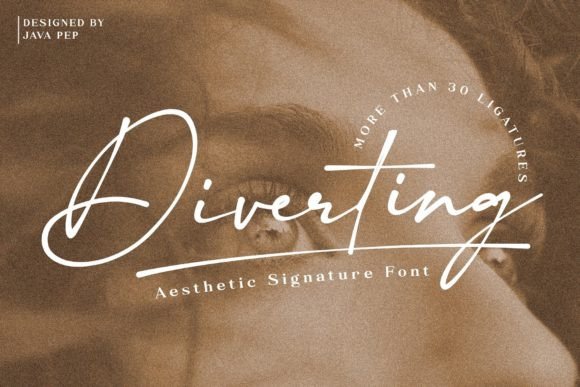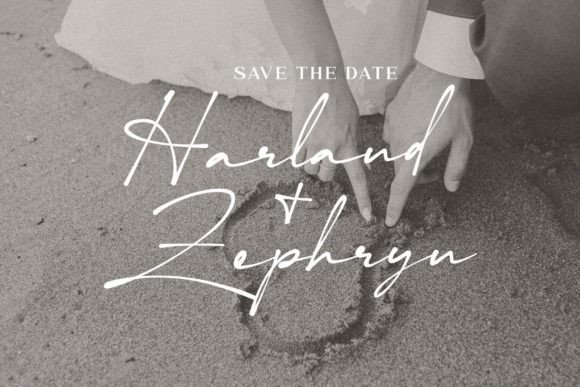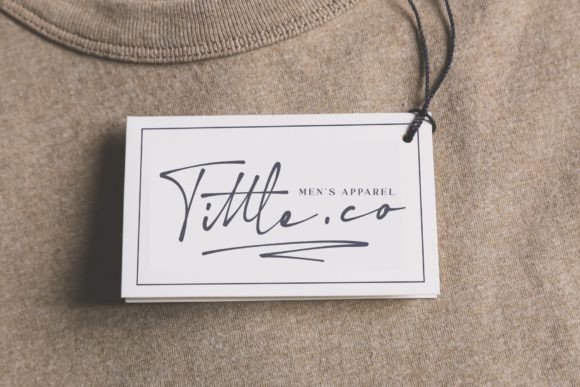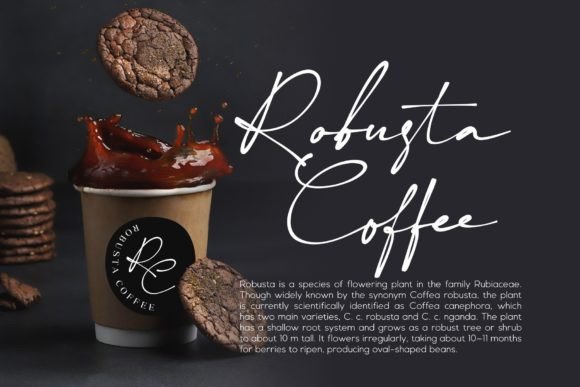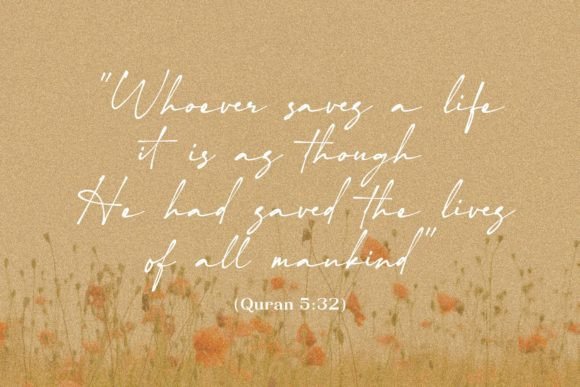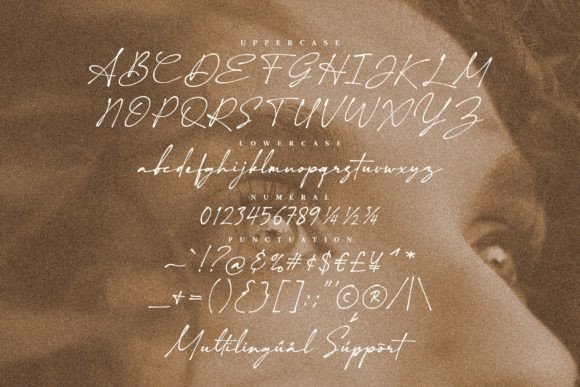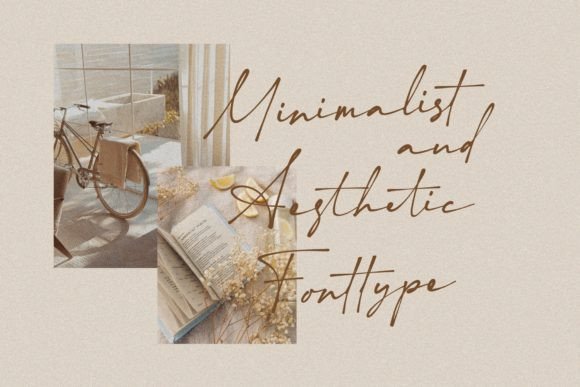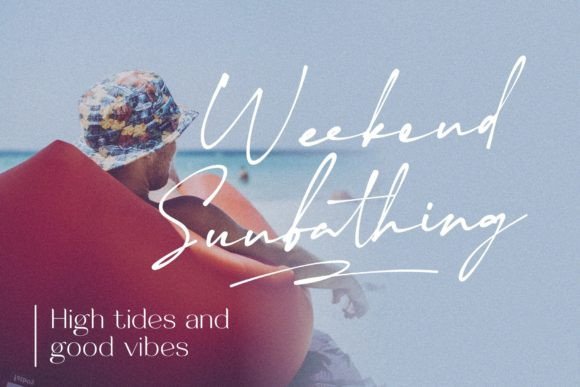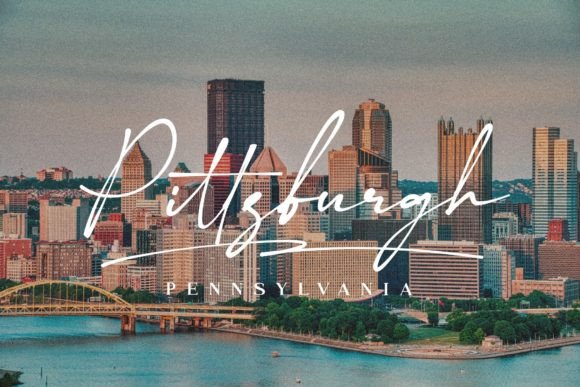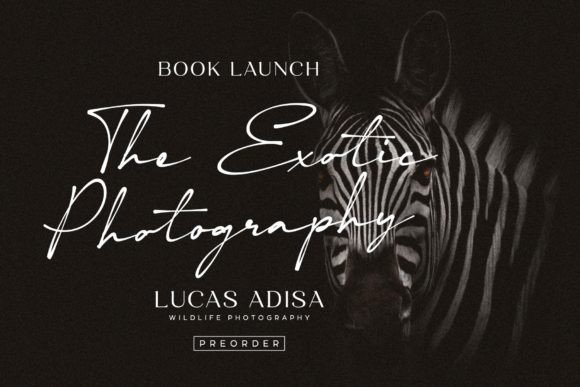
Diverting Font
About Diverting Font
**Diverting** is a stylish and visually appealing handwritten script font that exudes class, elegance, and modernity. This versatile typeface is perfect for a wide range of design applications, including logos, branding, invitations, stationery, wedding designs, social media posts, and many more creative projects. With its PUA encoding, you can easily access all the glyphs and swashes, providing you with ample creative freedom to customize your text.
One of the standout features of Diverting is its stylish and aesthetically pleasing design. Each letter is meticulously crafted to convey a sense of sophistication and elegance, making this font an excellent choice for projects where you want to create a refined and modern look.
For branding and logo design, Diverting lends a distinctive and memorable quality to your brand identity. Its sleek and elegant appearance helps your business stand out in the market, leaving a lasting impression on your audience.
Invitations and stationery designs take on a touch of class and style with Diverting. Whether you’re designing wedding invitations or elegant notecards, this font enhances the beauty and sophistication of your designs.
On social media, Diverting adds a sense of modernity and professionalism to your posts and graphics. It’s ideal for creating visually appealing content that engages your audience.
In summary, Diverting is a stylish and aesthetically pleasing handwritten script font that elevates your designs to a new level of class and elegance. Its versatility and modern look make it a fantastic choice for various design projects, and its PUA encoding ensures easy access to a wealth of glyphs and swashes. Embrace Diverting to add a touch of sophistication and creativity to your creative work.